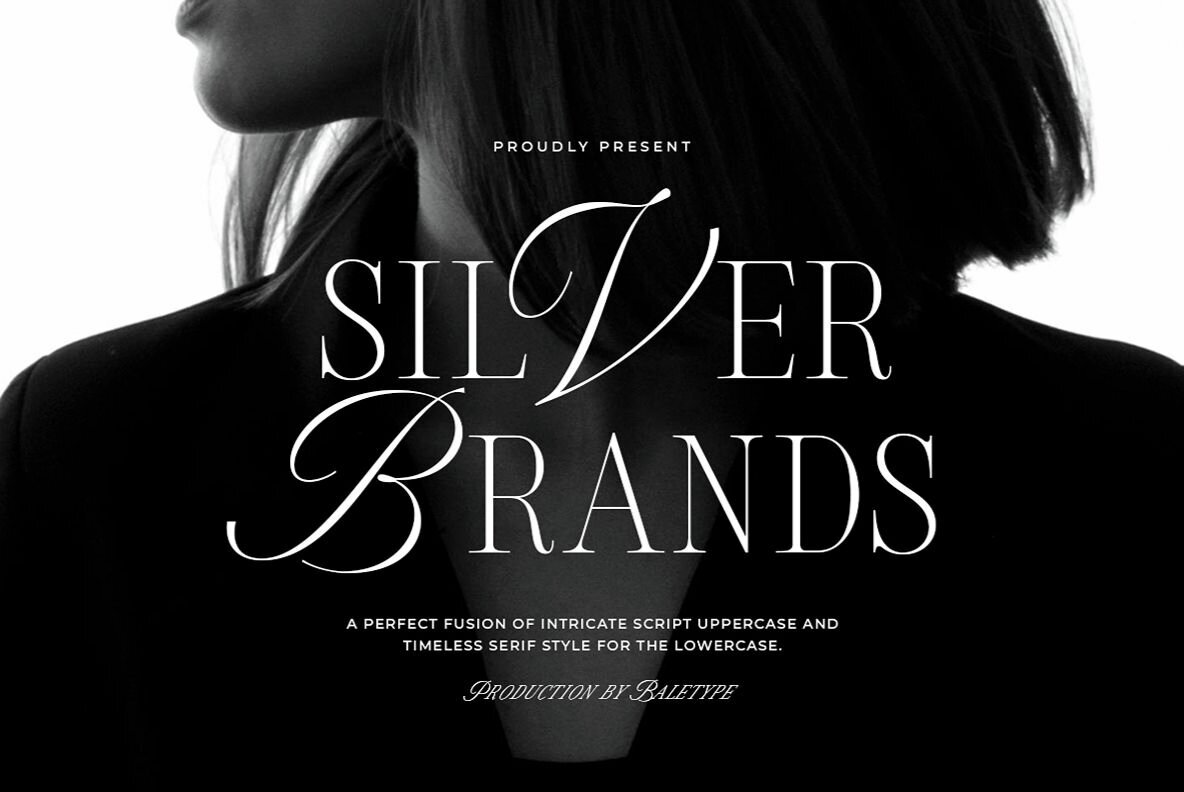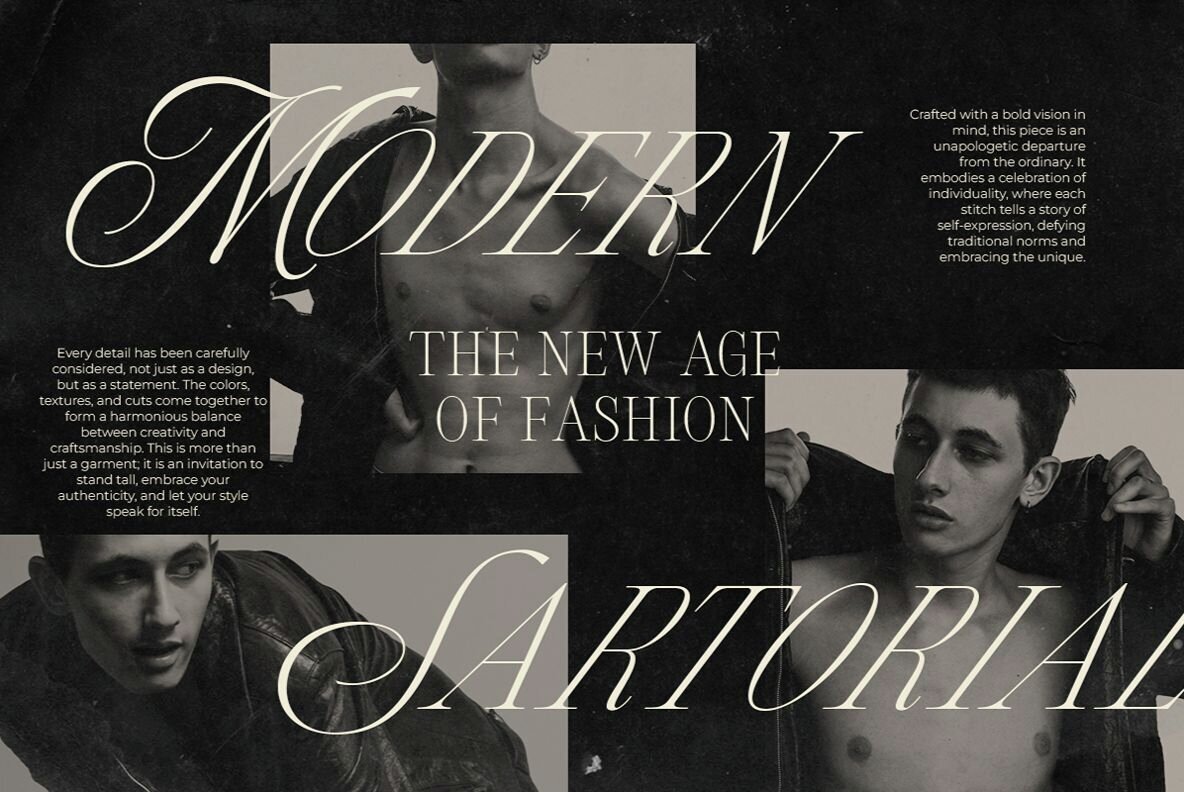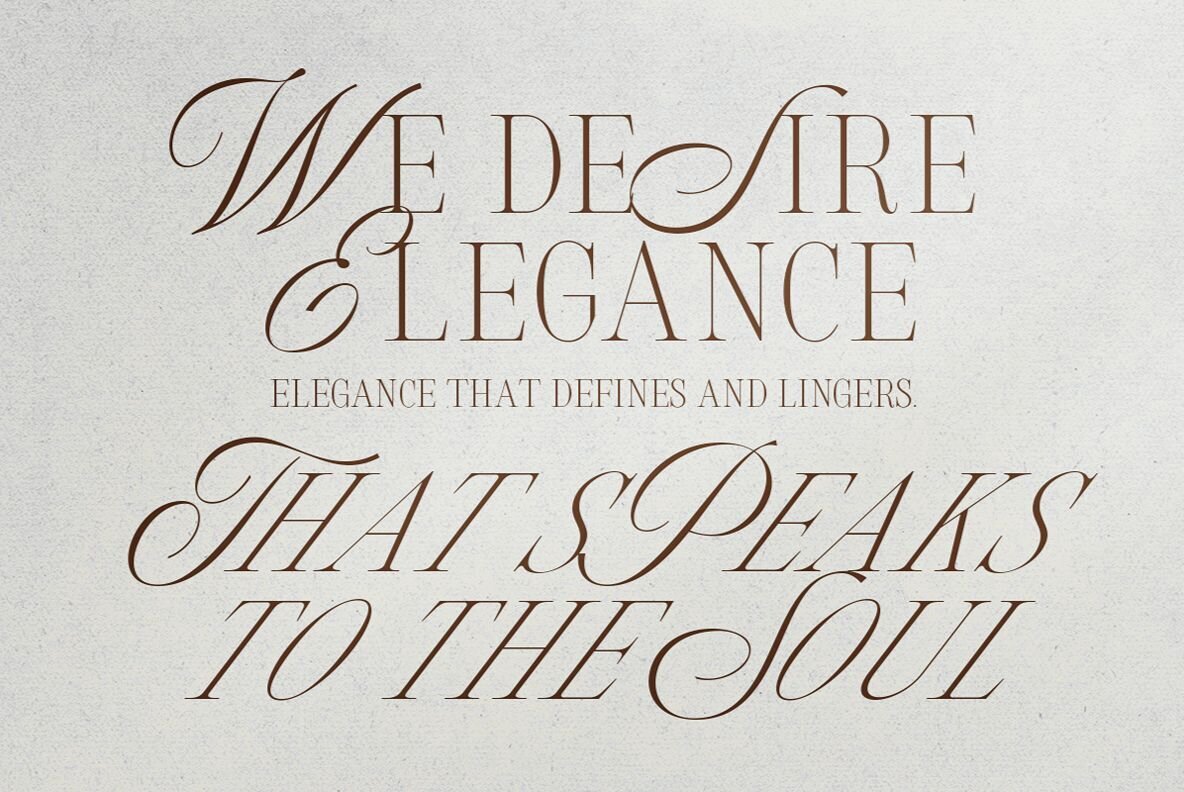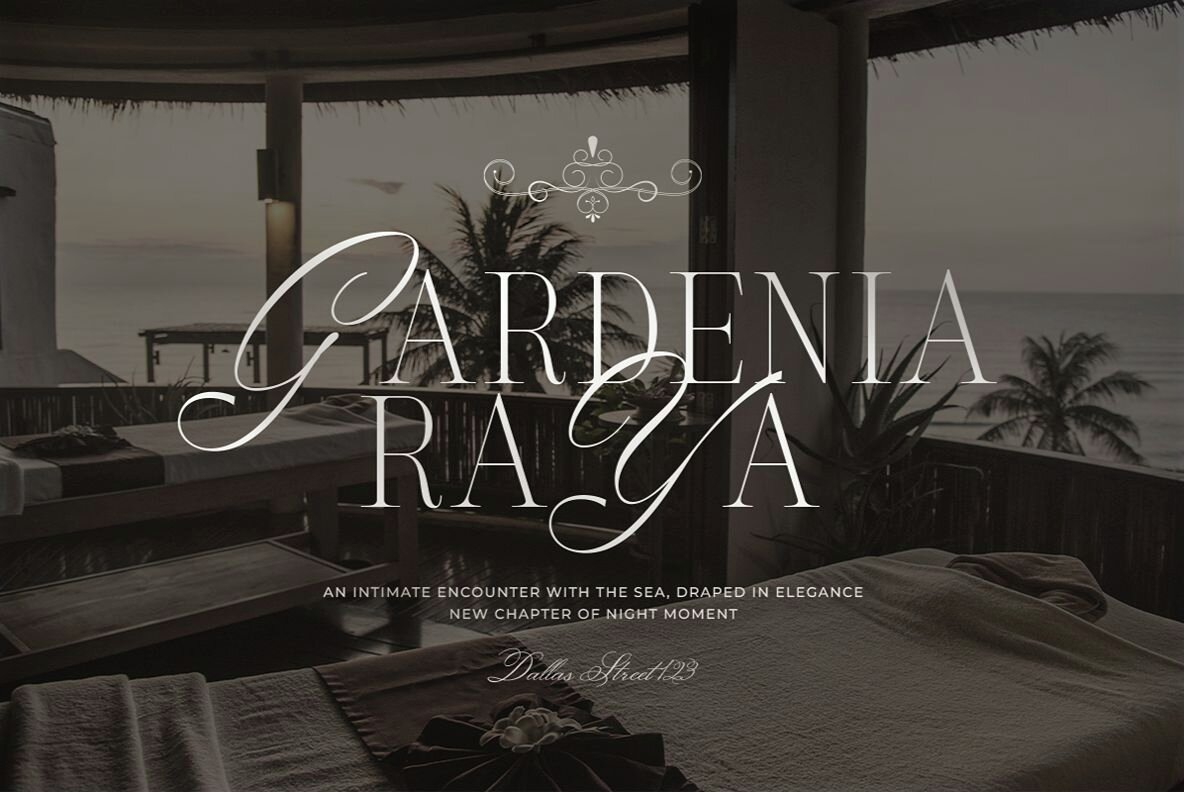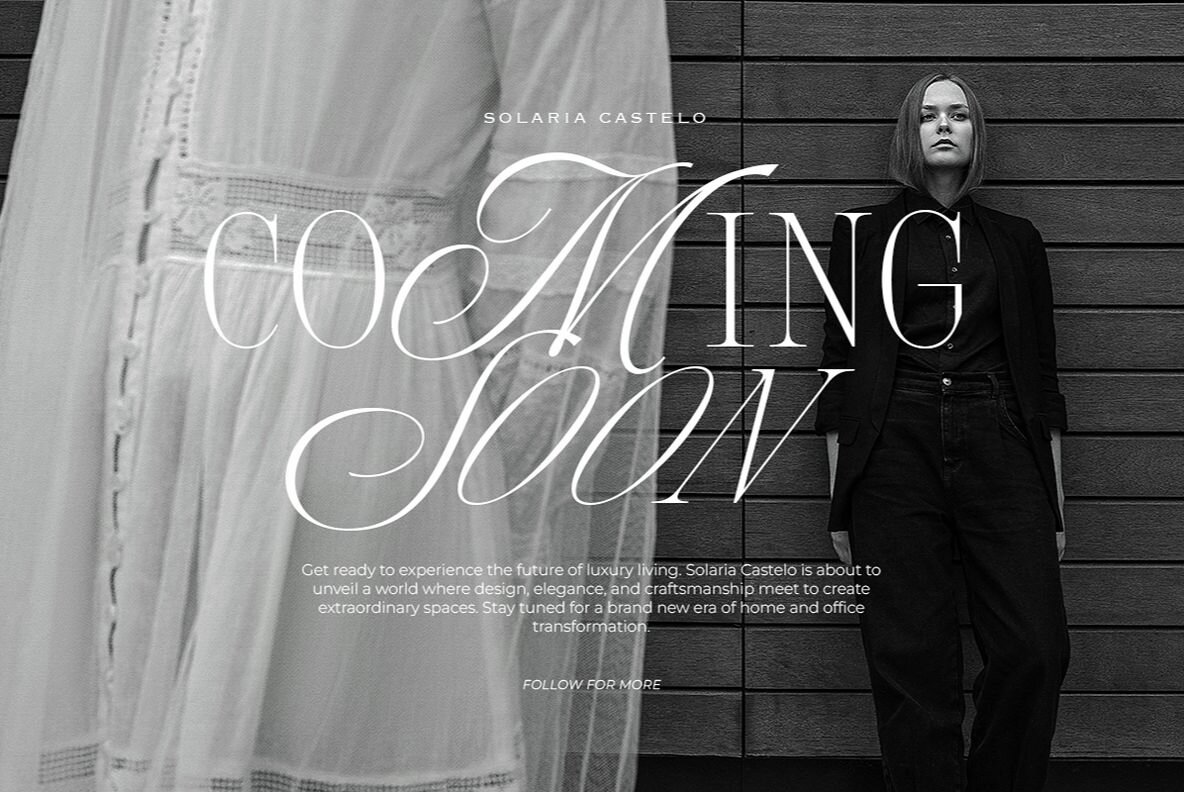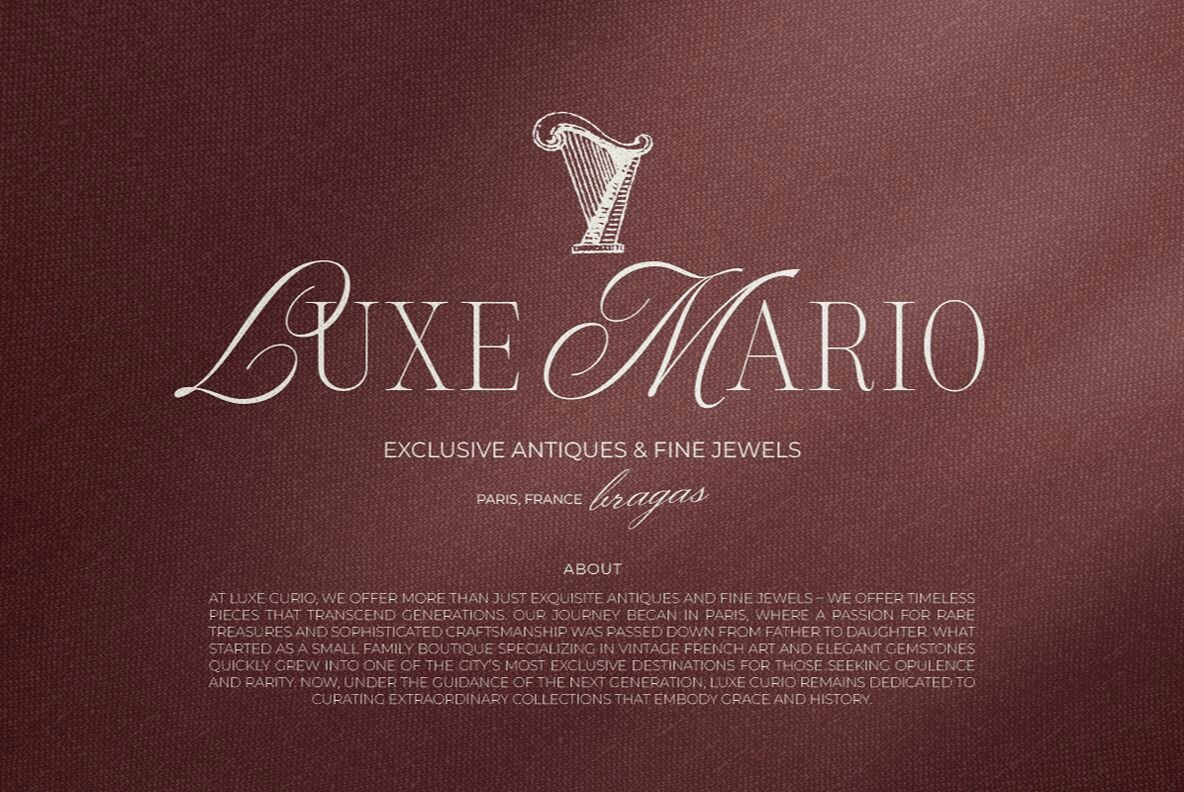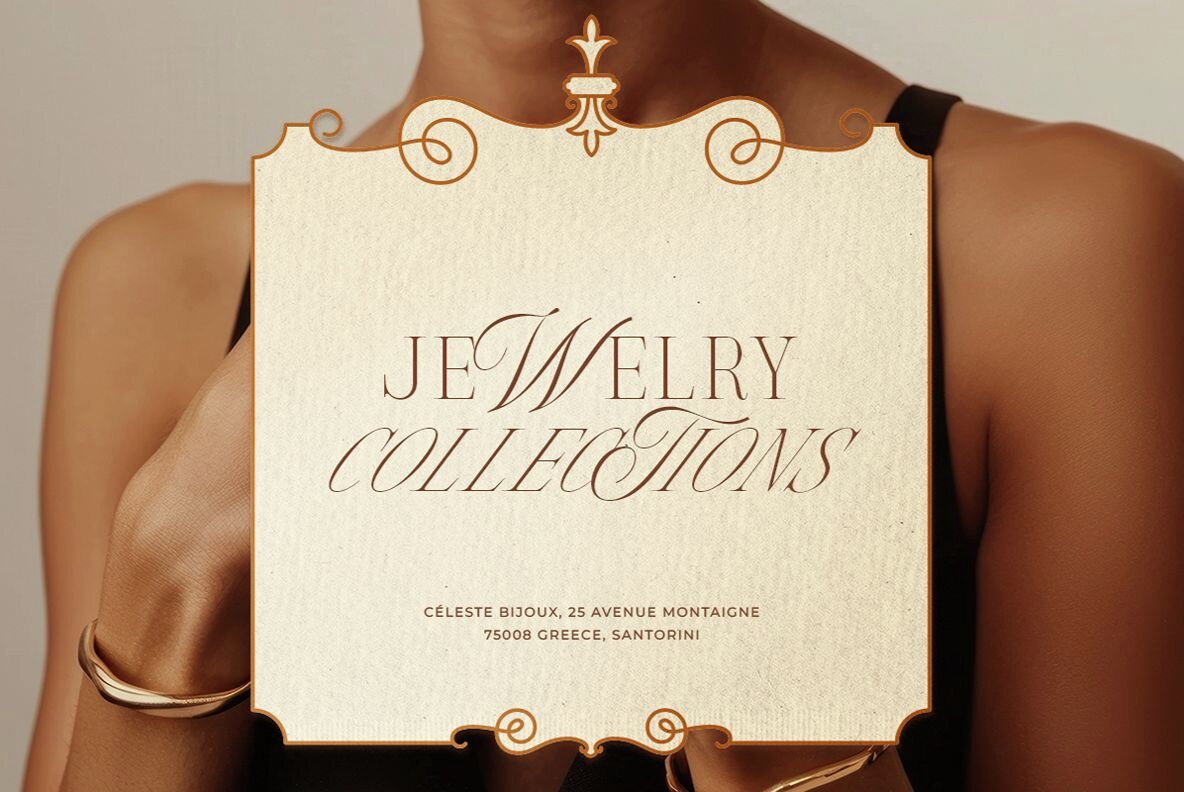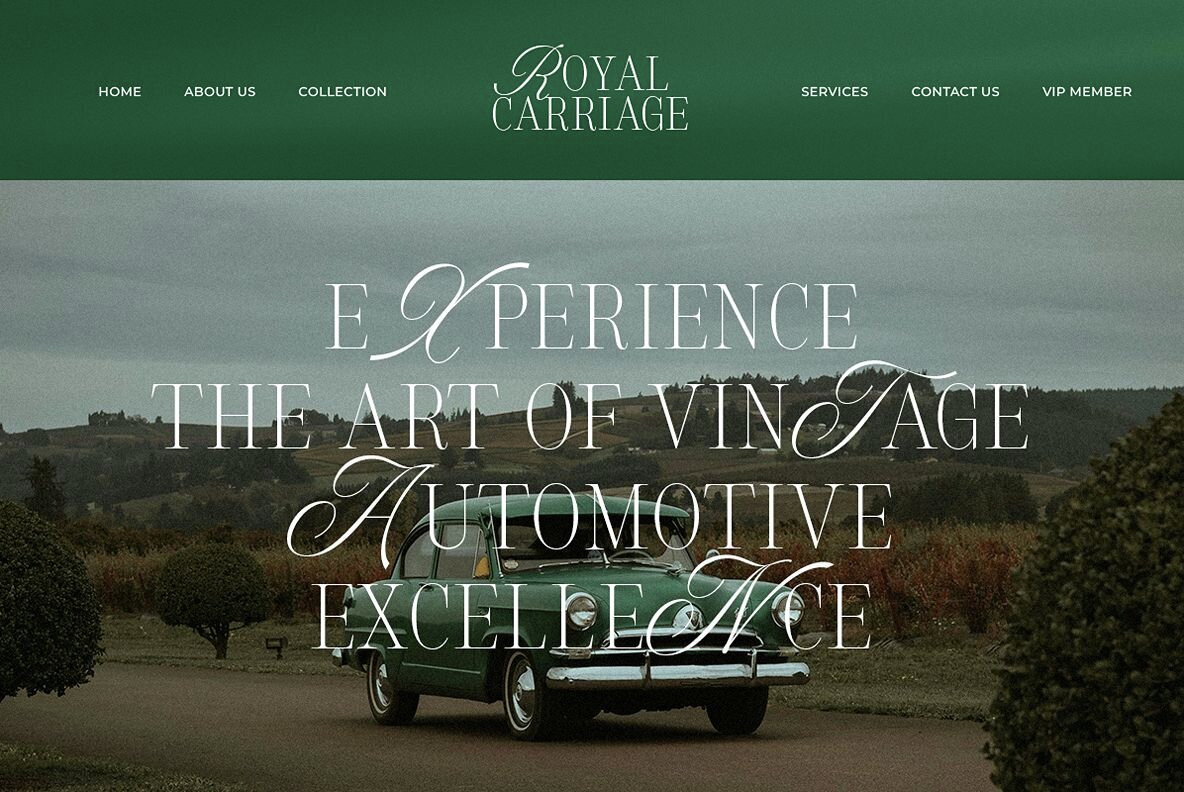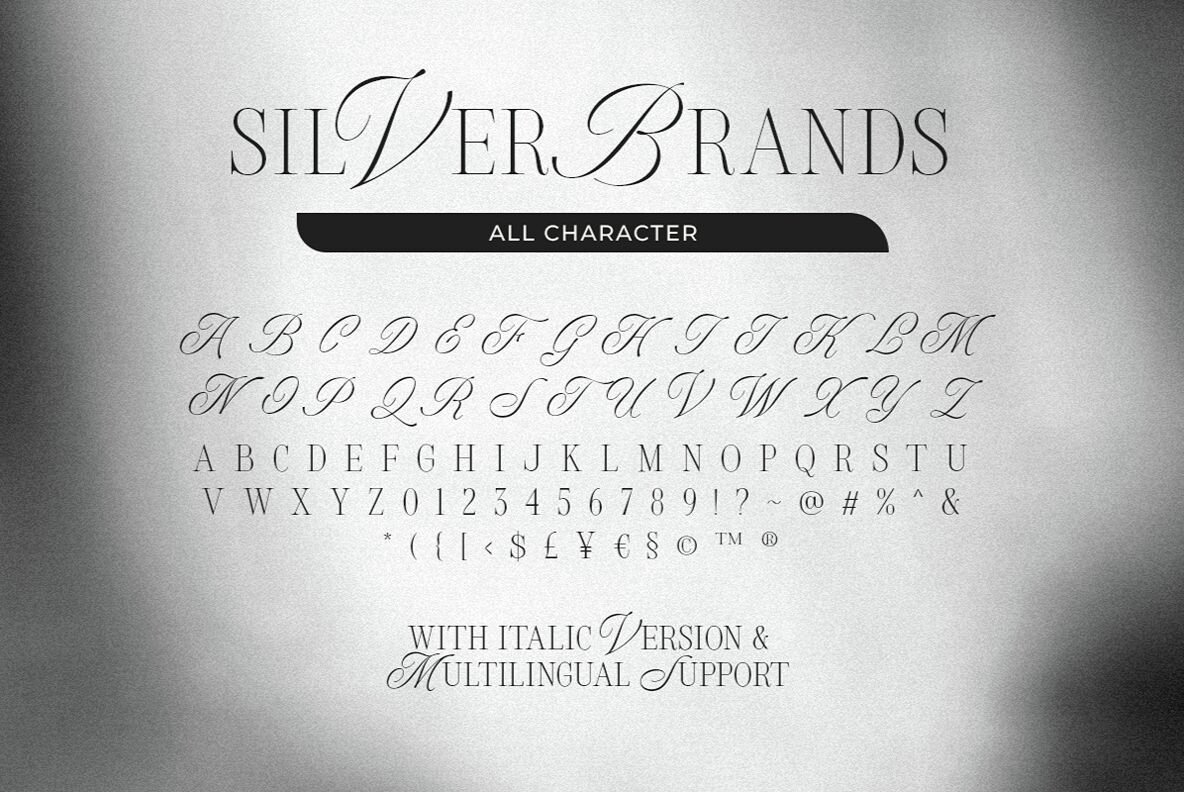
Silver Brands Font
Silver Brands Regular
Silver Brands Italic
The Silver Brands typeface combines elegant script uppercase letters with timeless serif lowercase, offering versatility for various design needs. Whether crafting a logo, developing branding materials, or setting evocative quotes, the italic version provides an additional layer of sophistication.Silver Brands: Elegance in Serif Form